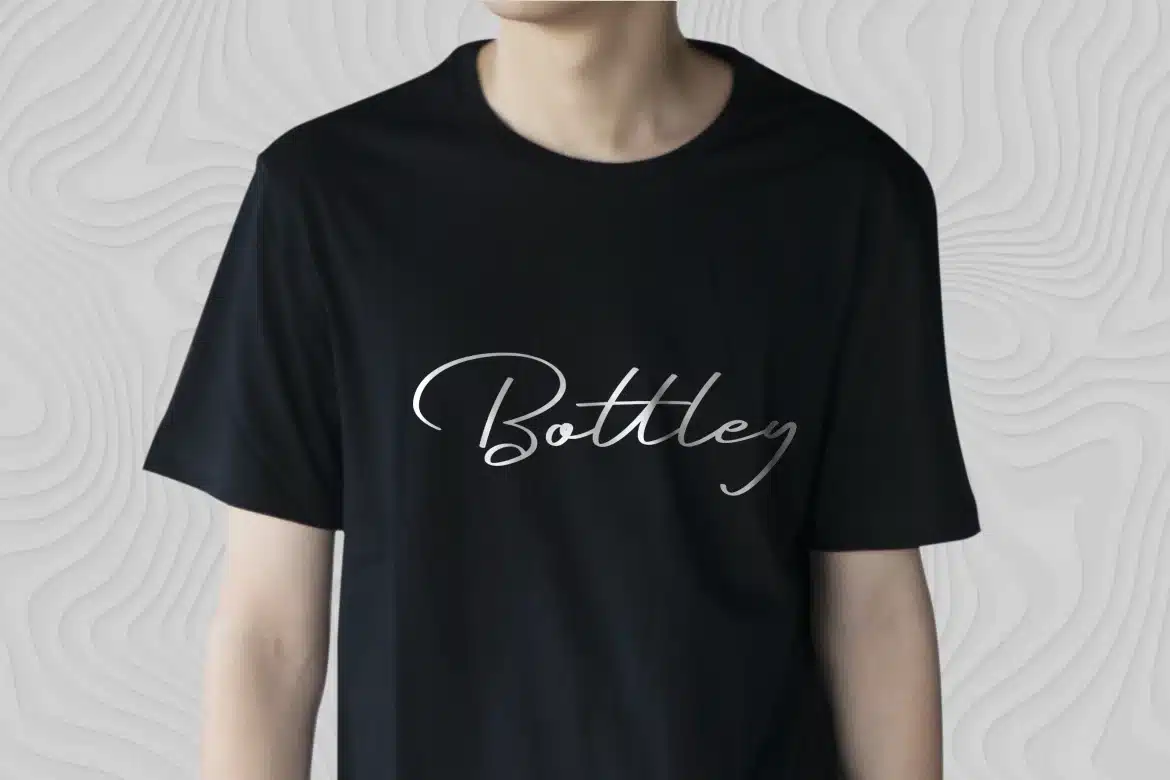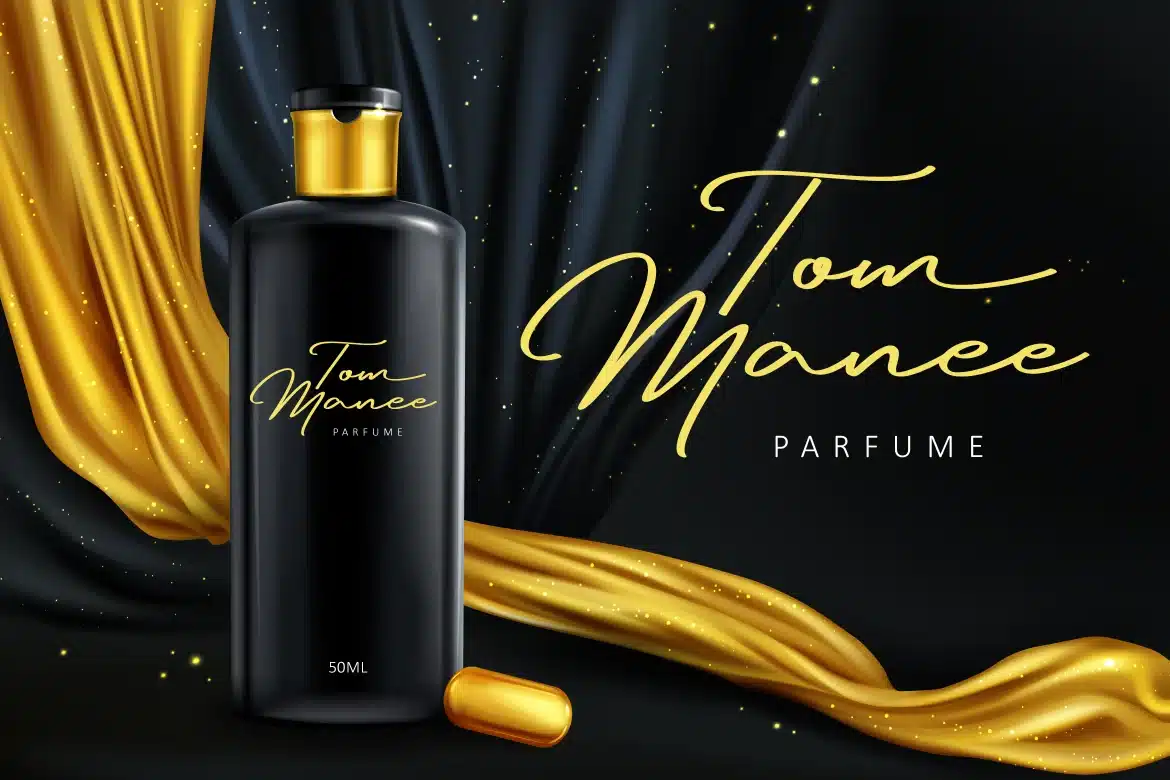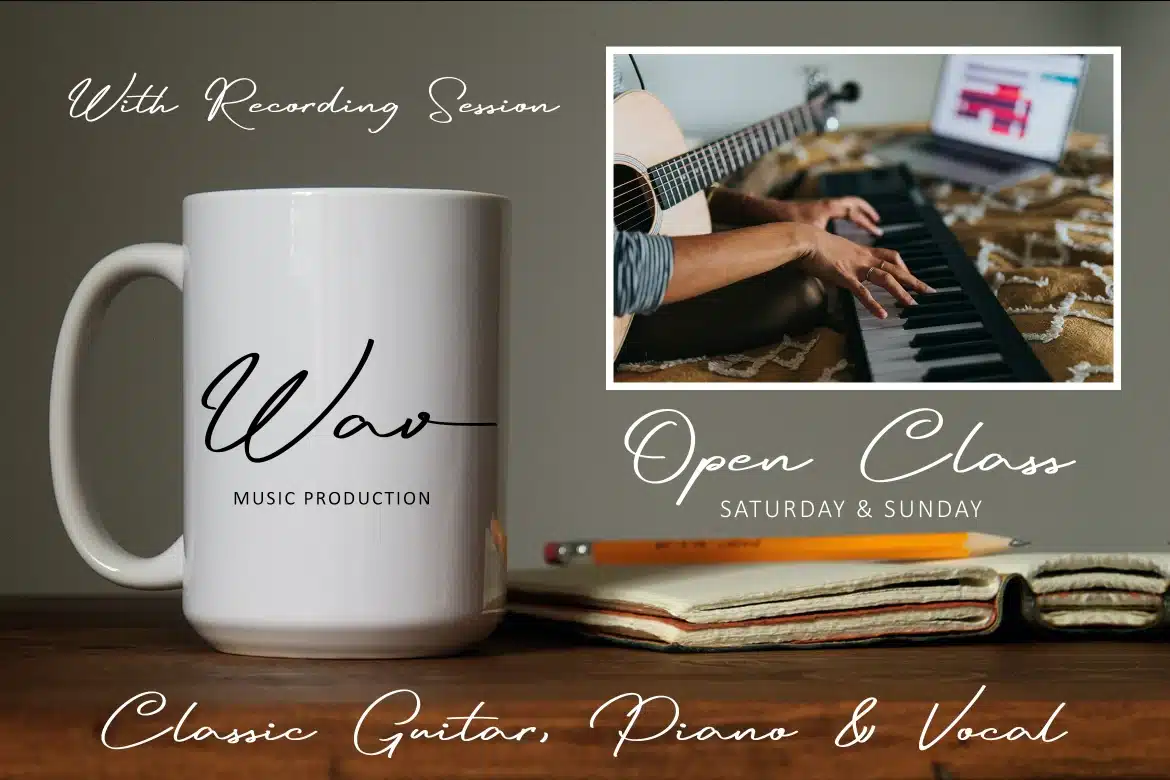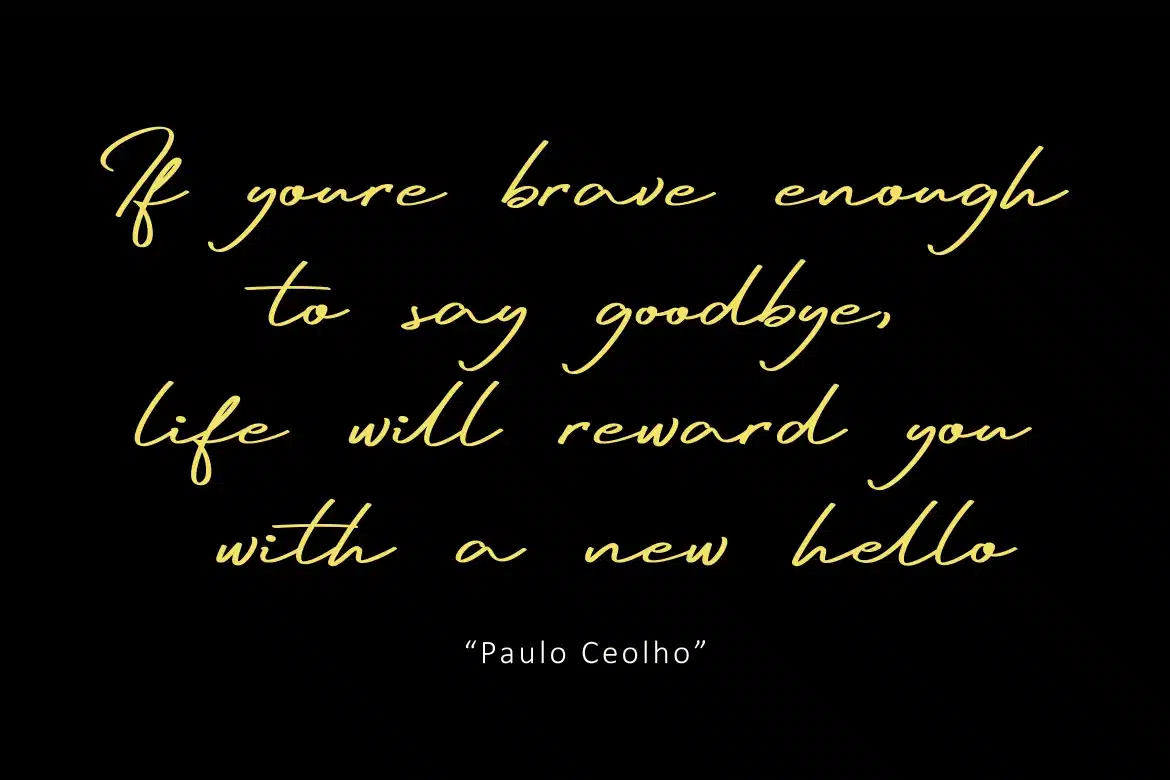
Reileigh Font
Reileigh Font is a business font. Perfect for any purpose like trademark, logo name,
photography, quotes and other. The best part is when you change the final form to swash, it is perfect signature